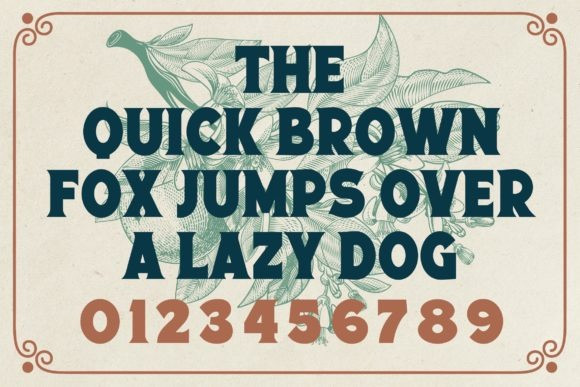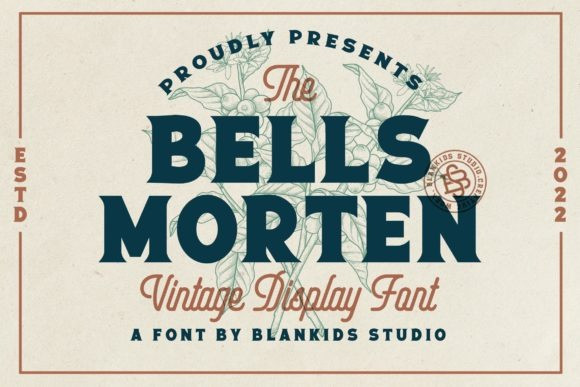
Bells Morten Font
Bells Morten Font is a rough textured and bold display font. This thick lettered is perfect for product packaging, branding project, magazine covers, social media, wedding, or just used to express words above the background.